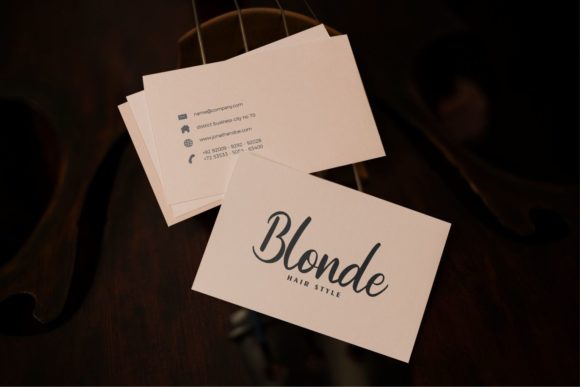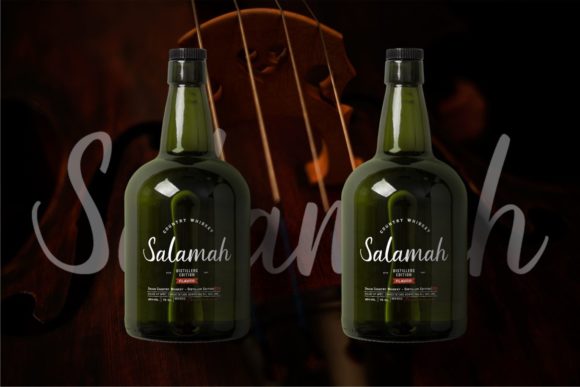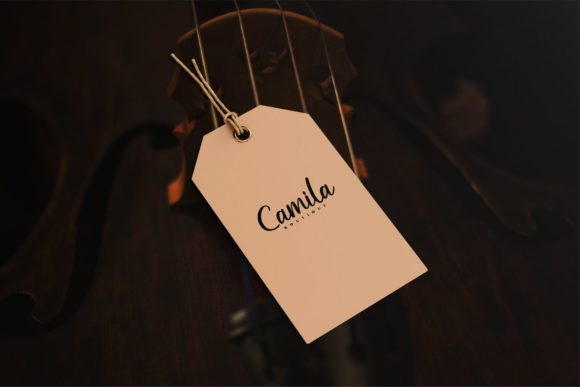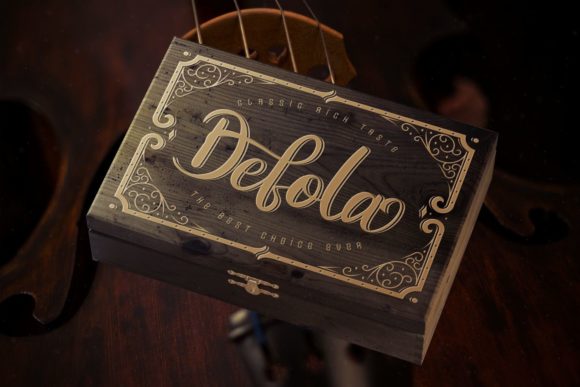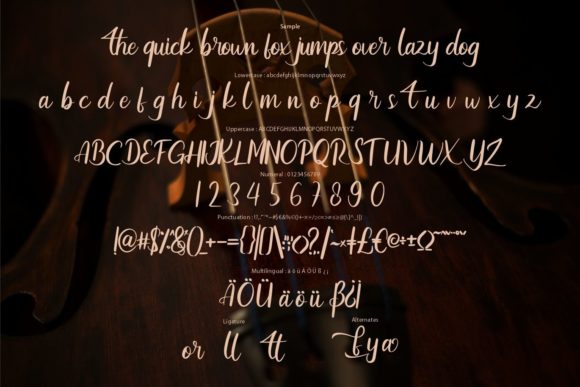
Simfony Font
About Simfony Font
Simfony is a captivating paint brushed script font that combines a unique flow with a touch of elegance. With its modern and stylish appearance, it is a versatile choice for various design projects.
The font’s brush strokes create a beautiful and natural flow, adding a sense of movement and energy to your designs. Each letter is carefully crafted to maintain a balanced and harmonious look, resulting in a font that is both eye-catching and legible.
Simfony is well-suited for logos and branding materials. Its classy and elegant style adds a sophisticated touch to your brand identity. Whether you’re creating a logo for a luxury brand, a boutique, or a creative business, Simfony elevates your design and helps create a memorable visual identity.
Invitations and stationery also benefit from Simfony’s charm. Whether it’s wedding invitations, event announcements, or personalized stationery, the font brings a modern and elegant vibe to these special occasions. Simfony’s unique flow and stylish appearance make a lasting impression and set the tone for a memorable event.
Social media posts and graphics can be enhanced with Simfony’s captivating look. Whether you’re designing Instagram quotes, Facebook covers, or Pinterest graphics, the font’s modern and trendy style adds a touch of sophistication to your visuals, making them stand out in the digital space.
Simfony’s versatility extends to various other design projects as well. From packaging and labels to magazine layouts and advertising materials, the font’s elegant and modern aesthetic elevates the overall design and captures attention.
The font is designed to maintain its high-quality appearance across different mediums and sizes, ensuring that your designs look stunning both in print and digital formats. It remains legible even at smaller sizes, allowing your message to shine through clearly.
Overall, Simfony is a lovely paint brushed script font that brings a unique flow and a touch of elegance to your designs. Its modern, classy, and versatile style makes it suitable for logos, branding, invitations, stationery, social media graphics, and much more. Embrace Simfony’s captivating charm and let it elevate your design projects to new heights.